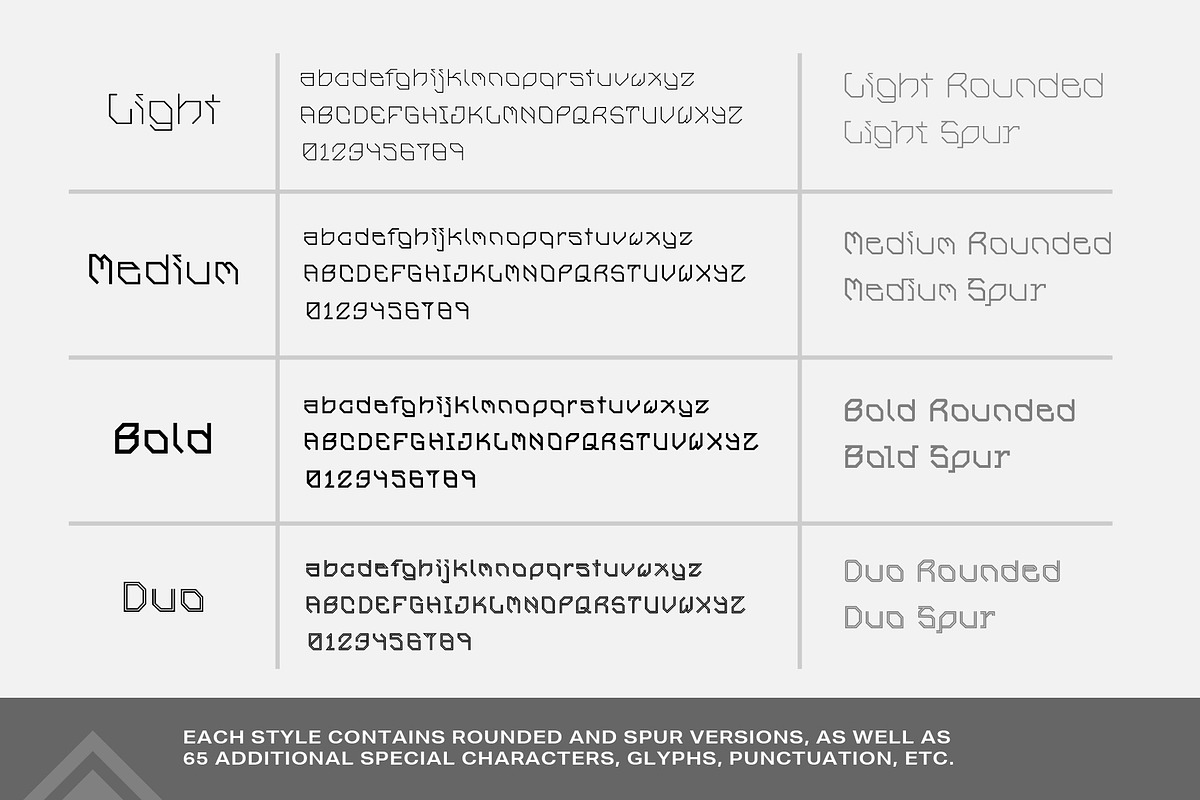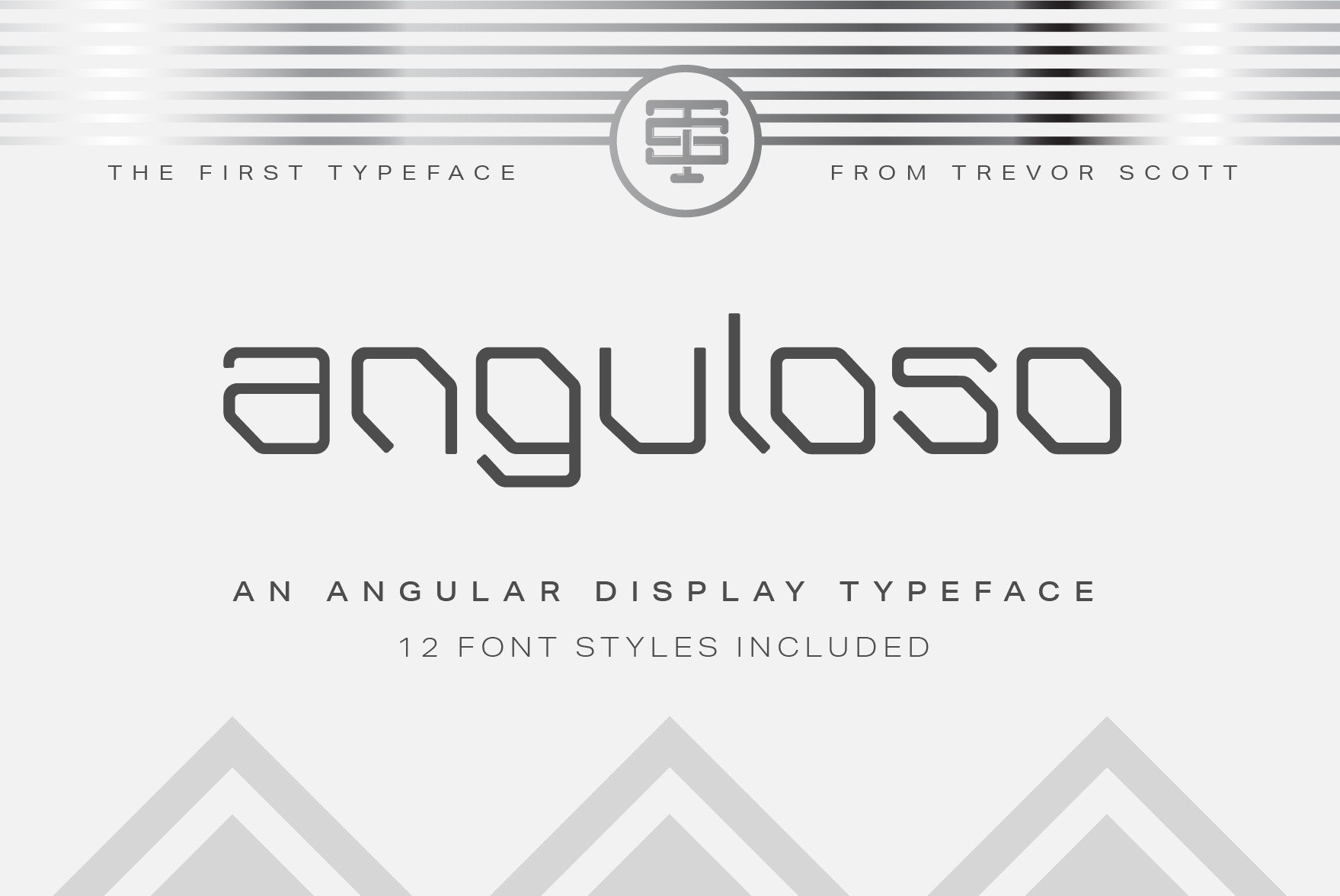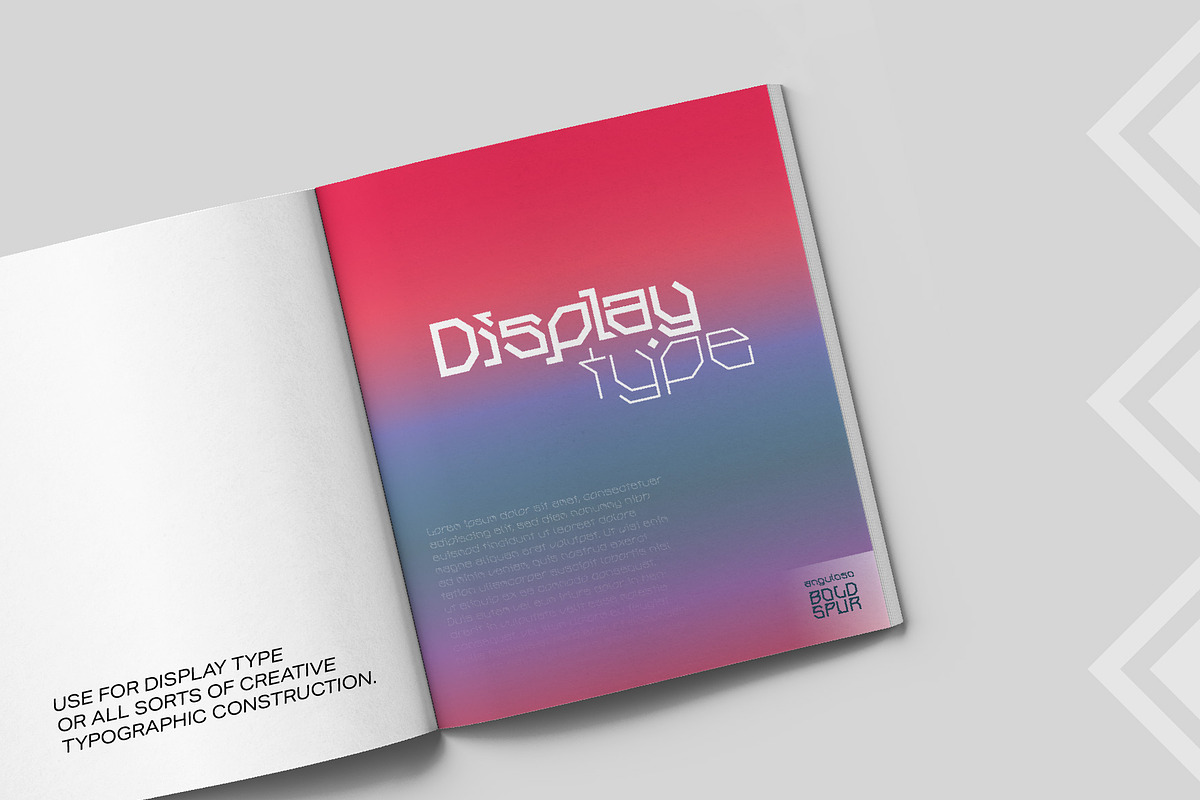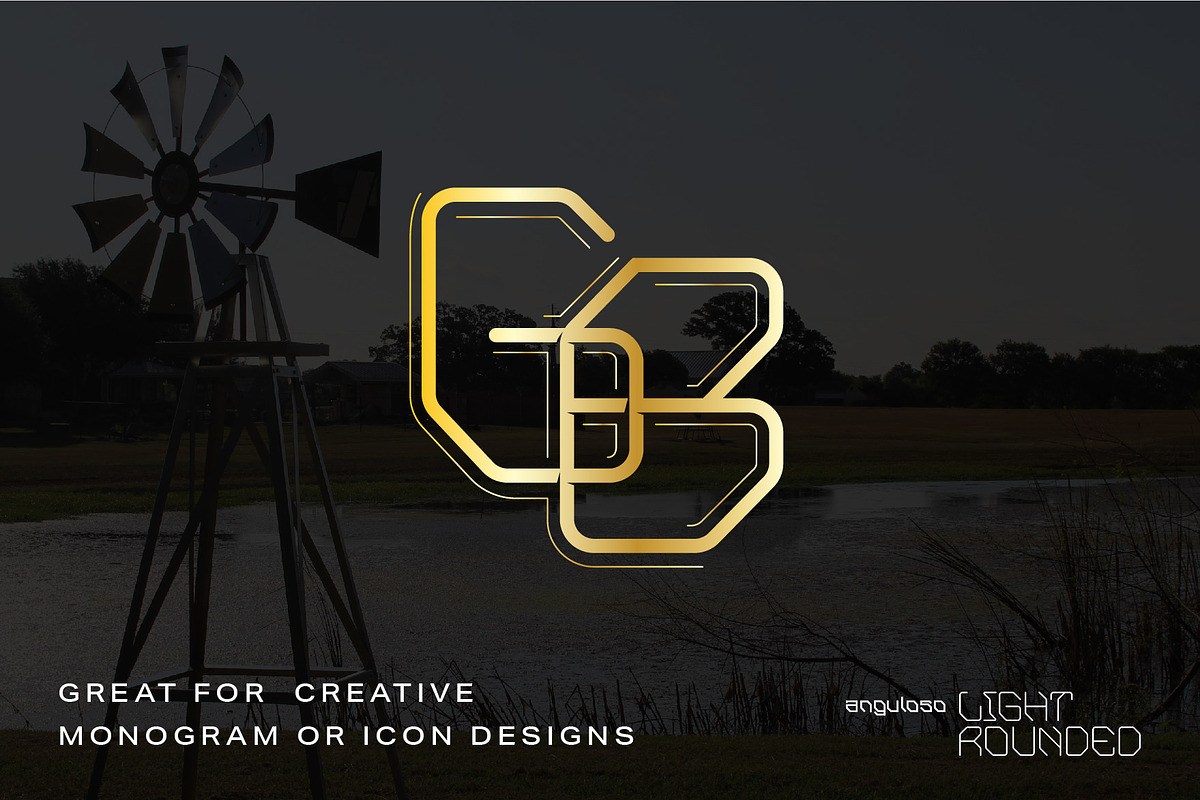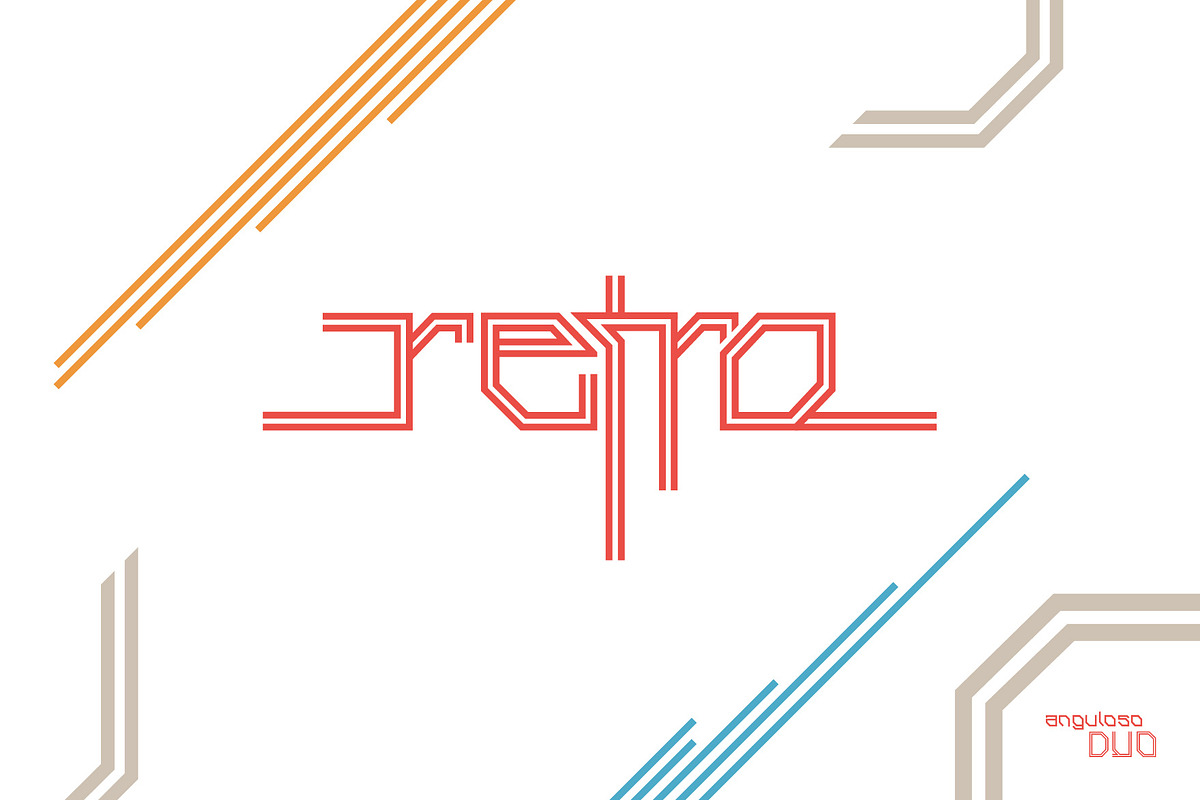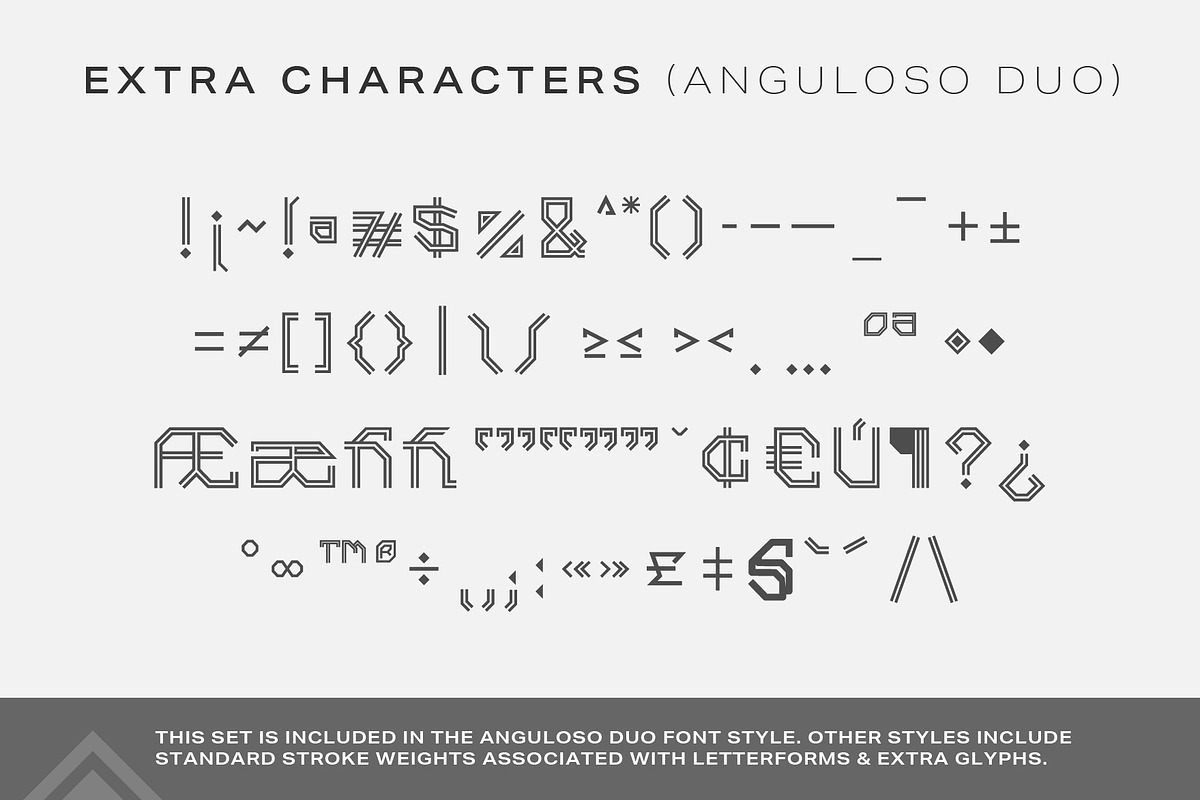
Anguloso - Angular Display Typeface
Introducing Anguloso – a funky, geometric, angular display typeface that explores the angularity of abstract letterforms. This font family offers a unique, versatile approach to designing with typography.
Following a strict grid, the typeface was designed using only vertical, horizontal, and 45° angled strokes. This distinctive factor offers consistency throughout each letterform, improving eye flow and alignment.
The Anguloso family includes 12 font styles of 140+ glyphs for each style. Alphabet letters (upper case and lowercase), numbers, punctuation, and a variety of commonly used glyphs for each are packaged with purchase! The font styles include rounded and spur (serif) versions for versatility in usage.
Anguloso is intended be used for anything from logos, icons, monograms, display type, etc., so it's time to get creative!
12 Included Font Styles:
- Light, Light Rounded, Light Spur
- Medium, Medium Rounded, Medium Spur
- Bold, Bold Rounded, Bold Spur
- Duo, Duo Rounded, Duo Spur